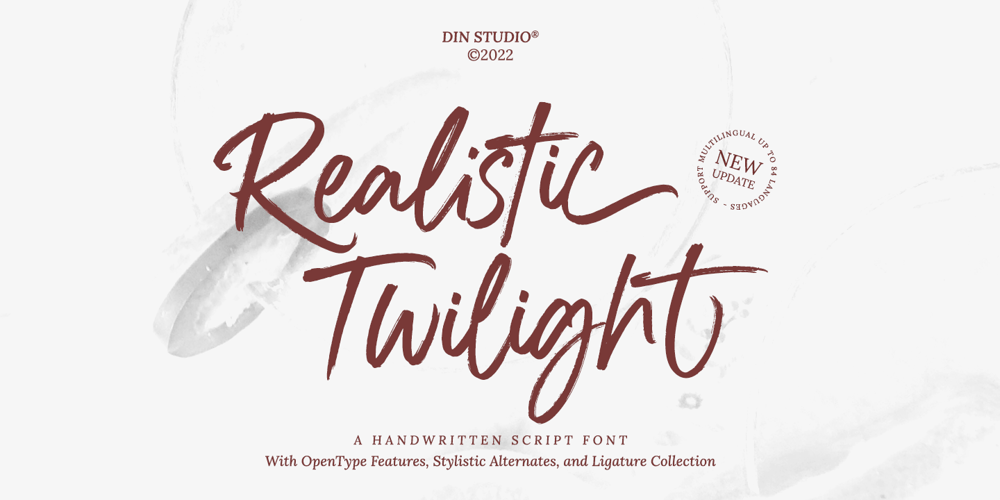
Realistic Twilight Font Family was designed by Donis Miftahudin and published by Nathatype. Realistic Twilight contains 1 styles and family package options. Ready to make your branding or project to the highest level? Looking for a font that masterfully designed to travel your audiences to a world of elegance? We’ve got what you want.Say hello to “Realistic Twilight-A Handwritten Script Font”Realistic Twilight is a gorgeous handwritten font combined with brush style Use this script font to deliver that special elegant and modern touch to any design idea you can think of! This font support multi languages to make your branding can reach global audiences. Realistic Twilight is perfect to be used for invitation, logos, heading, cover, poster,, quotes, header, merchandise, social media & greeting cards and many more. Features: Ligatures Stylistic Sets PUA Encoded Numerals and Punctuation Thank you for purchasing premium fonts from Din Studio! Happy Designing!